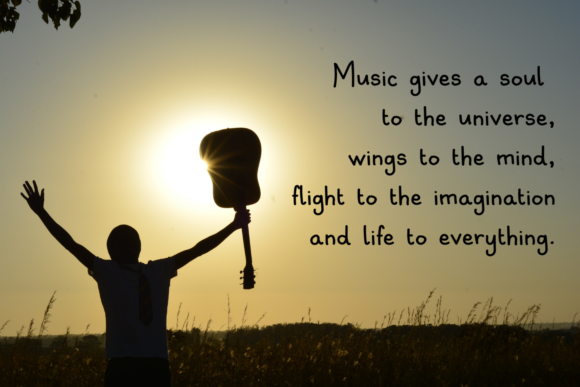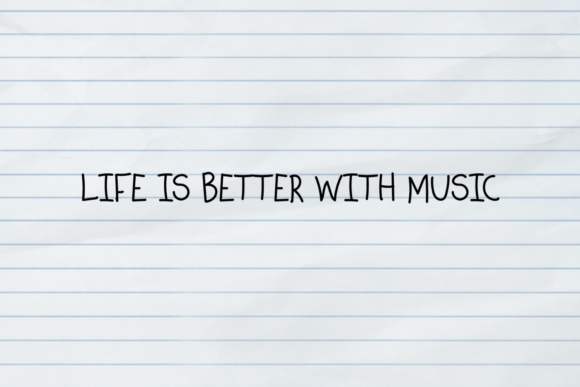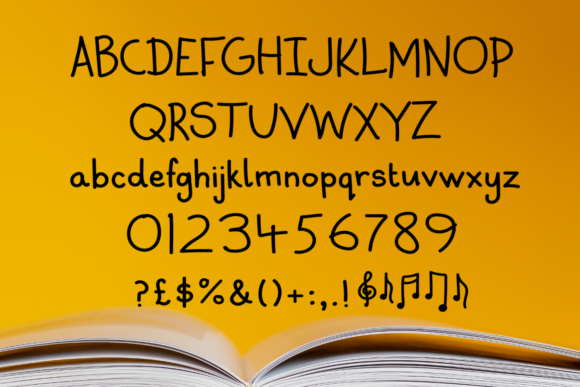
Introducing Friendly Notes Font: The Sweet and Friendly Handwritten Font for Your Designs
Are you tired of using the same old fonts for your designs? Do you want to add a personal touch to your projects? Look no further than Friendly Notes Font, a sweet and friendly handwritten font that’s perfect for a wide range of designs. With its natural and unique style, Friendly Notes Font is incredibly versatile and can be used for everything from greeting cards to branding and packaging.
The Unique Style of Friendly Notes Font
Friendly Notes Font is a handwritten font that’s designed to look like it was written with a pen or pencil. Its natural, imperfect style gives it a charming and approachable feel that’s perfect for designs that need a personal touch. The font’s unique style is characterized by its rounded edges, varying line widths, and subtle imperfections, which give it a warm and inviting feel.
The Benefits of Using Friendly Notes Font
So why choose Friendly Notes Font for your designs? Here are just a few benefits of using this amazing font:
- Versatility: Friendly Notes Font is incredibly versatile and can be used for a wide range of designs, from greeting cards to branding and packaging.
- Uniqueness: The font’s natural and unique style sets it apart from more traditional fonts and adds a personal touch to your designs.
How to Use Friendly Notes Font in Your Designs
Using Friendly Notes Font in your designs is easy. Here are a few tips to get you started:
- Pair it with other fonts: Friendly Notes Font looks great when paired with other fonts, such as sans-serif fonts or script fonts.
- Use it for headings and body text: The font is suitable for both headings and body text, making it a great choice for designs that need a lot of text.
- Add embellishments: Consider adding embellishments, such as illustrations or graphics, to give your designs an extra touch of personality.
Ideal Projects for Friendly Notes Font
Friendly Notes Font is perfect for a wide range of projects, including:
- Greeting cards: The font’s friendly and approachable style makes it perfect for greeting cards, invitations, and other paper crafts.
- Branding and packaging: Friendly Notes Font is a great choice for branding and packaging projects that need a personal touch.
- Blogging and social media: The font is also great for blogging and social media graphics, adding a personal touch to your online presence.
- Crafting and DIY projects: Friendly Notes Font is perfect for crafting and DIY projects, such as scrapbooking, journaling, and handmade cards.
If you’re a designer or crafter looking to use Friendly Notes Font in your projects, here are a few tips to keep in mind:
- Experiment with different colors: The font looks great in a range of colors, so don’t be afraid to experiment and find the perfect color for your design.
- Play with layout: Friendly Notes Font is a versatile font that can be used in a range of layouts, from simple to complex.
- Add textures and patterns: Consider adding textures and patterns to your design to give it an extra touch of personality.
Friendly Notes Font is a sweet and friendly handwritten font that’s perfect for designers and crafters looking to add a personal touch to their projects. With its natural and unique style, Friendly Notes Font is incredibly versatile and can be used for a wide range of designs. Whether you’re creating greeting cards, branding and packaging, or blogging and social media graphics, Friendly Notes Font is the perfect choice. So why wait? Download Friendly Notes Font today and start creating your own unique designs!